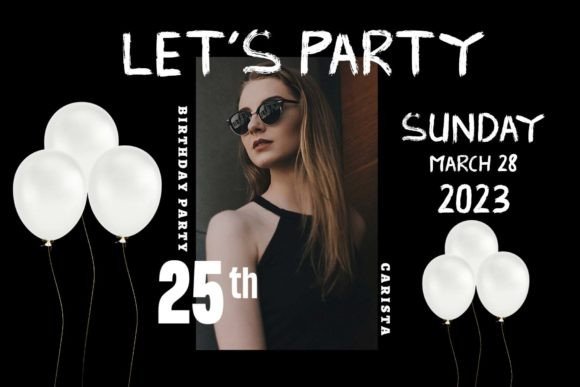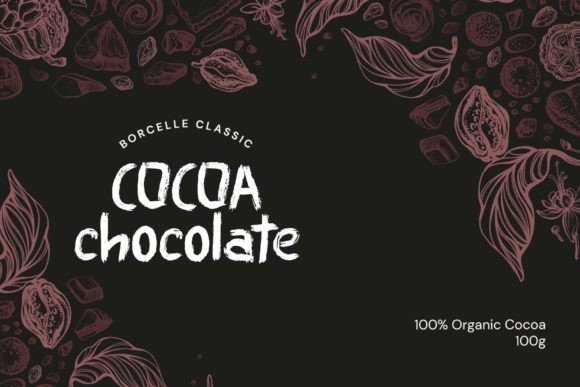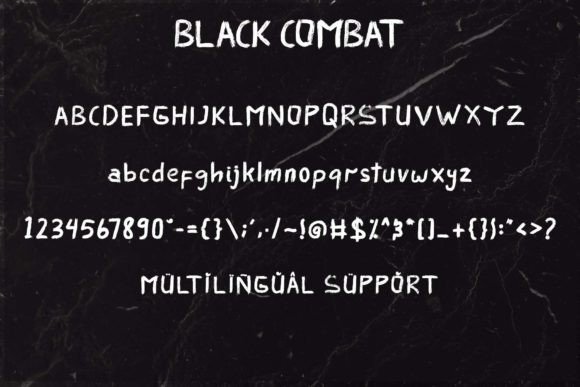
The Ultimate Guide to Black Combat Font: Unleash Your Creative Potential
I’ll never forget the time I was working on a project for a client who wanted a bold, edgy font to match their brand’s personality. I spent hours scouring the internet for the perfect font, but nothing seemed quite right. That was until I stumbled upon Black Combat Font. This cool and modern brush display font has been a game-changer for my designs, and I’m excited to share its awesomeness with you! 😊
An Honest Review of Black Combat Font
- ✨ Unique and eye-catching design: Black Combat Font stands out from the crowd with its bold, brush-stroked letters that add a touch of edginess to any design.
- ✅ High-quality and versatile: This font is perfect for a wide range of creative projects, from posters and flyers to social media graphics and branding materials.
- 💥 Easy to read and understand: Despite its bold and edgy design, Black Combat Font remains surprisingly legible, even at smaller sizes.
While Black Combat Font is an amazing font, it’s not perfect. Here are a few things to keep in mind:
- 🤔 Limited use cases for body text: Due to its bold and edgy design, Black Combat Font is best suited for headlines and titles. It may not be the best choice for longer blocks of body text.
- ⚠️ May require additional kerning adjustments: As with any font, you may need to make some manual kerning adjustments to ensure that your text looks its best.
The Backstory Behind Black Combat Font
Black Combat Font was designed by a team of creatives who wanted to create a font that would add a touch of edginess to any design. Inspired by the world of streetwear and graffiti, they crafted a font that’s both bold and elegant. Whether you’re a designer, crafter, or creative hobbyist, Black Combat Font is sure to become a favorite in your collection.
Q: What type of projects is Black Combat Font best suited for?
A: Black Combat Font is perfect for creative projects that require a bold and edgy font, such as posters, flyers, social media graphics, and branding materials.
Q: Is Black Combat Font easy to read?
A: Despite its bold and edgy design, Black Combat Font remains surprisingly legible, even at smaller sizes. However, it’s still best suited for headlines and titles rather than longer blocks of body text.